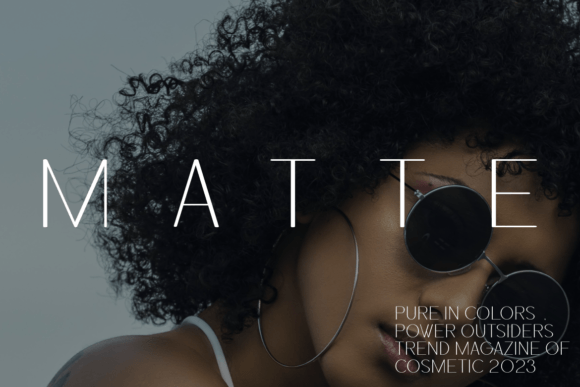
Introduction to Loreyna Font Font
Fonts play a crucial role in design, and the Loreyna Font font is a typeface that brings both character and versatility to any project. Whether you’re working on a branding project, a website, or a print design, the Loreyna Font font offers a unique style that can elevate your work.
Loreyna is a fantastic sans-serif font, useful for almost any fancy activity.
Perfect for invitations, albums, weddings, cards, social media and so much more .
Key Features of Loreyna Font Font
Why Choose Loreyna Font Font?
The Loreyna Font font is more than just a typeface – it’s a design tool that helps you communicate your message with style and clarity. Its unique character set and versatile design make it suitable for a wide range of applications, from elegant invitations to bold headlines.
With its carefully crafted letterforms and balanced proportions, the Loreyna Font font ensures readability and visual appeal across all mediums.
What makes Loreyna Font font special?
The Loreyna Font font stands out with its unique design, exceptional readability, and versatility across various design applications.